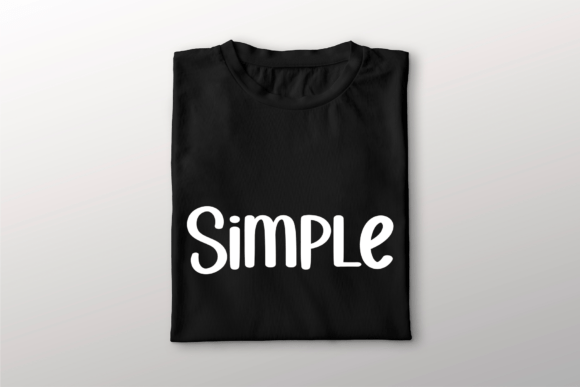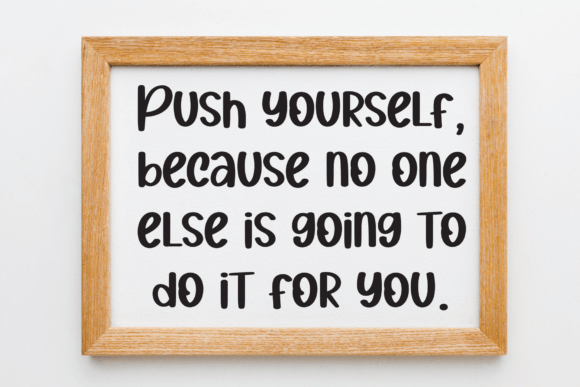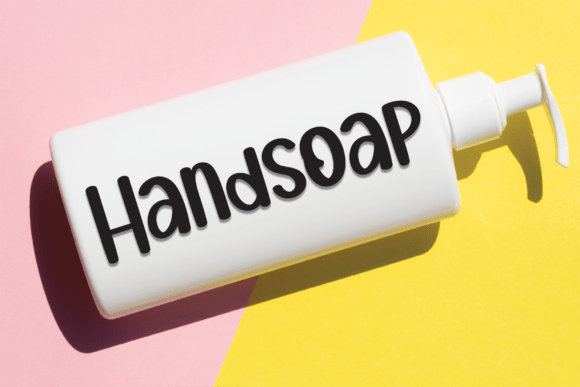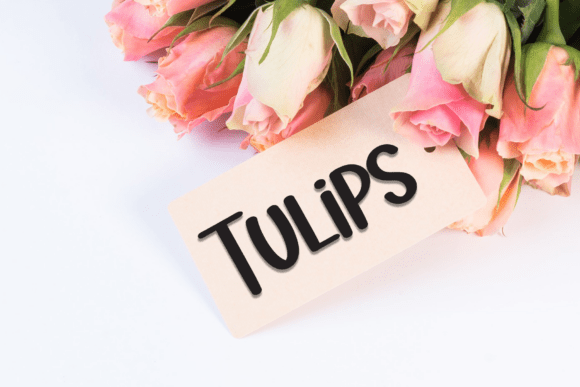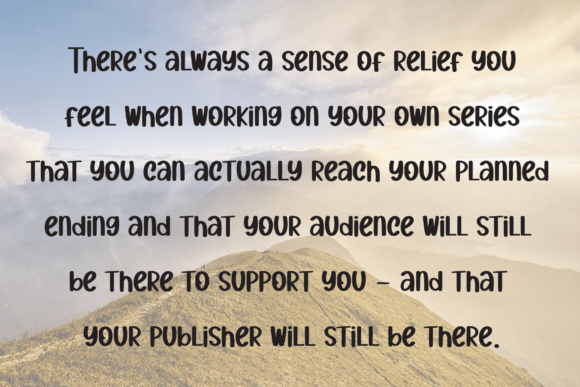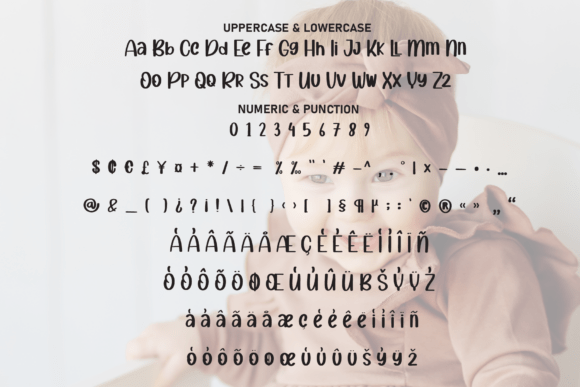
Baby Boho Font: The Perfect Blend of Casualness and Sophistication
In the world of typography, fonts play a crucial role in conveying the tone and personality of a brand or design. For designers and crafters looking for a font that exudes warmth, clarity, and approachability, Baby Boho Font is an excellent choice. This casual and neat display font is designed to bring a touch of sophistication and elegance to various projects, making it an ideal selection for branding, headlines, and everyday designs.
The Characteristics of Baby Boho Font
Baby Boho Font boasts a clean structure and approachable style, making it perfect for designers who want to create a friendly and inviting atmosphere in their designs. The font’s balanced letterforms offer exceptional readability and charm, ensuring that every message feels genuine and authentic. Whether you’re working on a branding project, creating headlines, or designing everyday materials, Baby Boho Font is versatile enough to adapt to various design needs.
Key Features of Baby Boho Font
- Clean Structure: The font’s clean and organized structure makes it easy to read and understand, even at smaller font sizes.
- Approachable Style: Baby Boho Font’s casual and friendly style creates a welcoming atmosphere, perfect for designs that require a personal touch.
- Balanced Letterforms: The font’s balanced letterforms ensure that every character is harmonious and visually appealing, making it perfect for branding and headlines.
- Readability: The font’s exceptional readability makes it suitable for a wide range of design applications, from digital media to print materials.
- Charm: Baby Boho Font’s unique charm adds a touch of personality to every design, making it stand out from more traditional fonts.
Uses of Baby Boho Font
Baby Boho Font is a versatile font that can be used in various design projects, including:
- Branding: Create a lasting impression with Baby Boho Font’s unique and memorable style, perfect for logos, business cards, and letterheads.
- Headlines: Add a touch of sophistication and elegance to your headlines with Baby Boho Font’s clean and balanced structure.
- Everyday Designs: Use Baby Boho Font in everyday designs, such as social media graphics, flyers, and brochures, to add a personal touch and create a friendly atmosphere.
Why Choose Baby Boho Font?
In a world where typography plays a crucial role in design, Baby Boho Font stands out from the crowd. Here are a few reasons why designers and crafters should consider Baby Boho Font for their next project:
- Unique Style: Baby Boho Font offers a unique and refreshing style that sets it apart from more traditional fonts.
- Readability: The font’s exceptional readability ensures that your message is conveyed clearly and effectively.
- Versatility: Baby Boho Font is versatile enough to adapt to various design needs, making it a valuable addition to any designer’s toolkit.
- Ease of Use: The font is easy to use and pairs well with a wide range of other fonts, making it perfect for designers of all skill levels.
In conclusion, Baby Boho Font is an excellent choice for designers and crafters looking for a font that exudes warmth, clarity, and approachability. With its clean structure, approachable style, and balanced letterforms, this casual and neat display font is perfect for branding, headlines, and everyday designs. Whether you’re working on a digital project or creating print materials, Baby Boho Font is sure to bring a touch of sophistication and elegance to your designs.